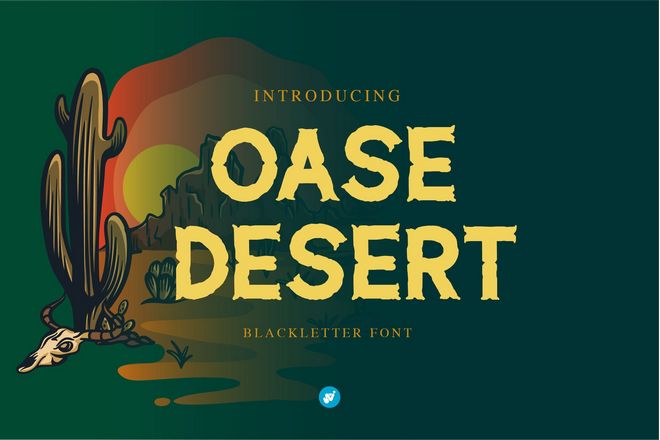
20+ Awesome Desert Fonts for Wild Aesthetic Designs
Desert-inspired fonts bring a rugged, wild aesthetic that instantly evokes wide open landscapes, sun-soaked horizons, and adventurous energy.
What makes desert fonts so striking is their character and how they combine bold letterforms with weathered textures, rustic serifs, or geometric details reminiscent of desert motifs.
Perfect for branding, posters, apparel, or social media graphics, these typefaces can give your projects a raw, earthy feel that stands out from more polished, conventional designs.
In this post, we’ve curated the best desert fonts to help you create eye-catching, wild aesthetic designs.
Whether you’re working on a music poster, outdoor brand identity, travel campaign, or a boho-inspired project, you’ll find fonts here that add the perfect balance of grit and beauty.
Retro Grade – Western Style Desert Font
Retro Grade is a slab serif font with a desert-style design that takes inspiration from mid-20th-century typography, perfect for projects requiring a retro or vintage ambience. Its bold structure evokes a nostalgic feel. It includes regular, italic, outline, rough, and two shadow variants, available in OTF and TTF formats, offering a range of creative options.
Oase Desert – Slab Serif Desert Font
Oase Desert is a unique slab serif desert font that accommodates uppercase, lowercase, punctuation, and numbers. This versatile font features a creative desert-inspired design, which is sure to add a distinct touch to any project, making it an excellent choice for various projects from posters to banners, flyers, and more.
Deserted Canyon – Modern Textured Font
Deserted Canyon is a distinctive, modern, textured font that grabs attention with its bold, strong design. Available in both solid and transparent versions, it is ideal for headline use that requires striking fonts. It’s perfect for a range of formal applications including invitations, logos, magazines, and packaging.
Canyon Slab – Wild West Desert Font
Immerse yourself in the heart of the Wild West with Canyon Slab. This desert-inspired slab serif font radiates a powerful essence of strength and daring with its bold serifs and robust letterforms. It’s perfect for wild west-themed design projects as well.
Determite Country – Classic Desert Font
Determite Country is a western-inspired desert font with a unique reverse contrast design. Perfect for classic western-style projects, this font can be applied to a variety of formats from logos to invitations. The typeface includes lowercase and uppercase variants, regular and slanted styles, numbers, punctuation, and multilingual options.
Buckaroo – Creative Desert Themed Font
Buckaroo is a distinctive handmade font with a desert theme, drawing influences from the American Southwest and Mexico. It meshes old western-typefaces into a functional, contemporary design. Buckaroo comes complete with uppercase, lowercase, numbers, and special characters. Ideal for headlines, logos, badges, or even t-shirts, this font brings a warm desert vibe to any project.
Cactus Ridge – Western Desert Font
Cactus Ridge is a fun and genuine display font that can elevate your projects, ranging from blog posts to greeting cards. Its versatility is perfect for logos, branding, ads, and other designs. This zip file includes regular, italic, grunge, and grunge italic formats, adding depth to any creative project.
Desertian – Bold Desert Themed Font
Desertian is a unique, contemporary typeface that captures the spirit of the wilderness. Its robust and authentic design shines in various mediums, making it an excellent asset for branding projects, such as logos or T-shirt prints, and even esports. This versatile font comes in otf and ttf formats and boasts a full set of uppercase letters.
Black Ground – Rustic Desert Themed Font
Black Ground is a distinctive, rustic desert-themed font that delivers a bold, sturdy feeling perfect for a range of formal applications, including logos, invitations, labels, and advertising. This brush typeface features uppercase and lowercase alternates, ligatures, punctuation, numbers, and multilingual support with PUA encoding.
Wildest Grass – Unique Desert Font
Wildest Grass is a unique desert font characterized by a natural style and perfectly textured brush strokes. Crafted with great attention to detail, this creative asset boosts designs with its natural appeal. Ideal for a wide range of applications like logos, product packaging, merchandise, blog design, or even custom-made t-shirts, the font offerings include uppercase, lowercase, punctuation, and multilingual characters.
Millgrove – Condensed Desert Font
Millgrove is a distinctive, condensed desert font. With its three styles – regular, edge, and stamp, Millgrove can bring a unique flair to titles, headlines, logos, and various other formal documents like invitations or labels. This font is highly versatile, supporting uppercase, lowercase, numbers, punctuation, and multiple languages.
South Canyon – Retro Desert Font
Inspired by fearless cowboys and stark landscapes, this font’s bold letterforms lend an authentic and impactful flair to your designs. Ideal for striking a balance between legibility and boldness, you can also opt for its vintage stamp variant for a weathered look. South Canyon will infuse your work with adventure and cowboy charm.
Mount West – Wild Desert Font
This robust display font showcases four versatile styles and a handcrafted, vintage texture. Exuding rugged charm and cowboy culture, Mount West delivers a strong visual impact, ideal for logos, posters, and branding. It comes with file types including Opentype, TrueType, WOFF, and WOFF2.
Western Sheriff – Cowboy Style Desert Font
Western Sheriff is a robust, vintage-inspired font that encapsulates the spirit of the Old West. Its cowboy flair makes it ideal for posters, branding, or logos needing a rustic touch. Easy to install and available in OTF, TTF, and WOFF formats with multilingual support, the font adds distinctive character to your designs.
Sandbrush – Handbrushed Desert Font
Looking for a natural touch for your design work? Look no further than the Sandbrush. This versatile font offers a unique hand-brushed design, perfect for logos, branding, posters, book covers and much more. It includes upper and lowercase characters, punctuation and numerals. This font even comes with a variety of OpenType features and supports a wide range of multilingual characters.
Sandblast – Script Desert Font
Sandblast is a brush script font that features an extreme textured finish, meticulously designed and hand-written for authenticity. Users will appreciate its natural written look, especially when used with layer masks in Photoshop. Sandblast includes various ligatures, numbers, punctuation, non-English support, and swashes.
Wildhorse Canyon – Desert Font
Wildhorse Canyon is a unique sans-serif hand font, peppered with creative alternate glyphs. Ideal for various design needs like logos, branding, or promotional graphics. Also great for social media posts and print-on-demand designs. Comes in TTF, otf, WOFF, and WOFF2 formats. Its rustic charm will undoubtedly add a sparkle to your creations.
Sand Wish – Hand Lettered Desert Font
Sand Wish is a hand-lettered desert font with a clean, professional, and bold effect. Each letter has a unique personality, making it exciting to use for various personal and commercial projects. With a craftsmanship born from original handmade sketches, the Sand Wish font is perfect for posters, social media posts, wedding invitations, or even logo designs, effortlessly creating an exclusive identity in all your designs.
Best Free Desert Fonts
Akando – Free Desert Style Font
Akando is a stylish font you can use for various purposes, including branding designs. The font comes with a desert-themed design that fits perfectly with luxury and high-end brands. It’s free to use with personal projects.
Amane – Free Desert Themed Font
Amane is another free font featuring a desert-themed design. This font also has a luxury-style vibe that is perfect for crafting logos and badges for high-end brands. The font is free for personal use.
Deserta – Free Desert Style Font
Deserta is a clean and simple font with a thick letter design. This font is ideal for crafting bold headings and titles, especially for posters and flyers. You can use it freely with your personal and even commercial projects.
101! Cacti – Free Playful Desert Font
The creative and playful design of this font makes it a perfect choice for crafting titles for designs related to children. It comes with decorative letter designs with cactus spines all over each letter. The font is free for personal use.